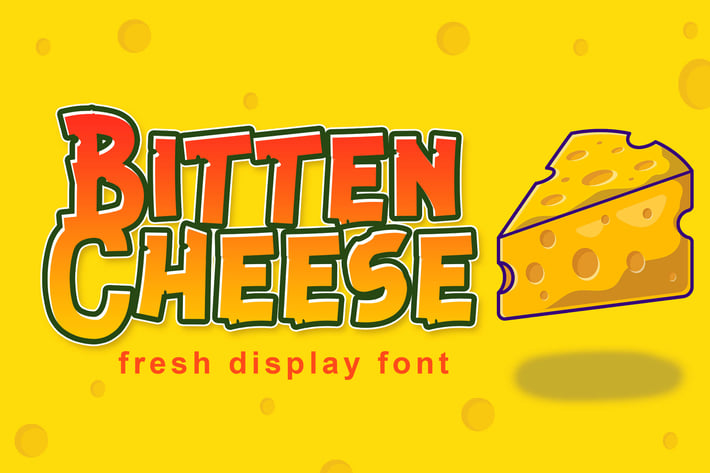
Bitten Cheese Advertisement Font
Bitten Cheese is a chunky lettered and unique display font. Perfect for any advertisement project, packaging, restaurant menu, and many others. Add this font to your favorite creative ideas and notice how it makes them come alive!